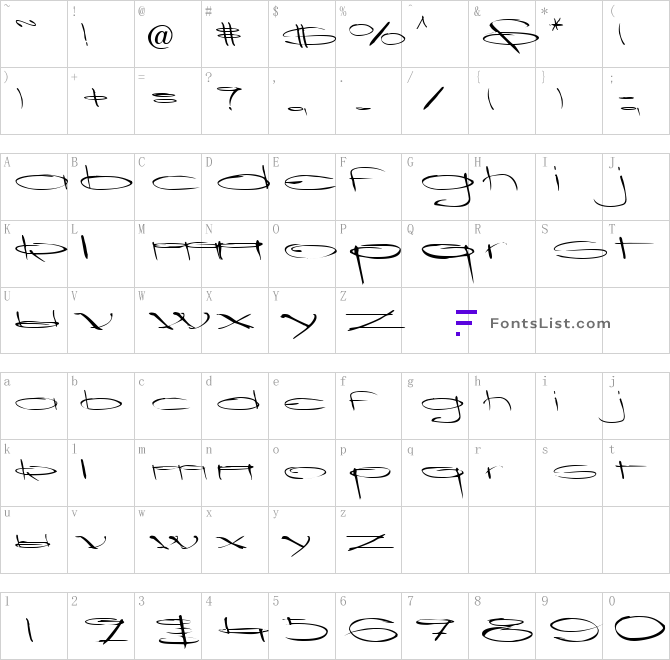
- Font Name:A3 Becker
A3-Becker.ttf is a very beautiful artistic font, A3-Becker.ttf is widely used in the design and printing of various books and pictures,A3-Becker.ttf has a strong visual impact,A3-Becker.ttf is a commonly used font in newspapers, magazines and books, and is used in posters, e-commerce Poster design, store design, logo design, font design and other fields.A3-Becker.